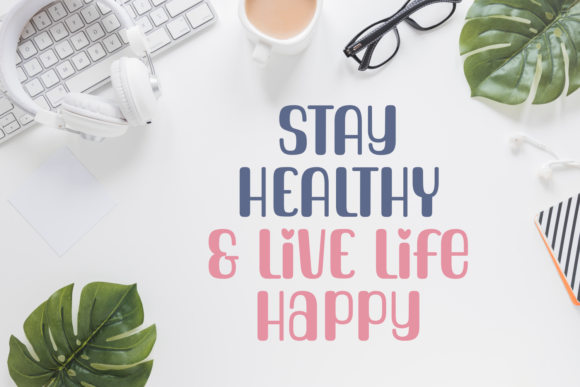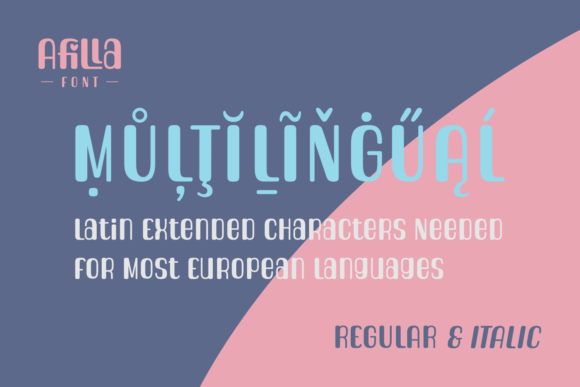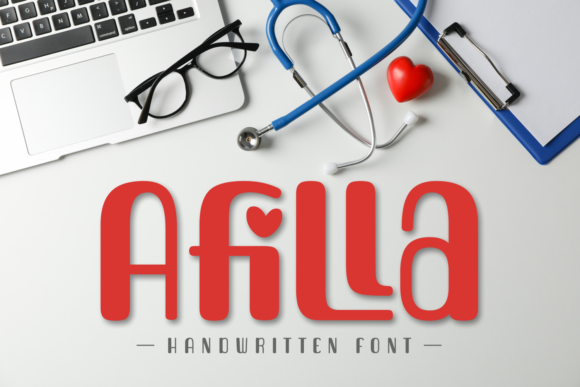
Introducing Afilla Font: The Cute and Casual Handwritten Font for Creative Projects
Are you a designer, crafter, or DIY enthusiast looking for a font that can add a personal touch to your creative projects? Look no further than Afilla Font, a cute and casual handwritten font that is sure to bring a friendly feel to any design. In this article, we’ll take a closer look at Afilla Font, its features, and how it can be used to elevate your creative projects.
What is Afilla Font?
Afilla Font is a beautifully designed handwritten font that is perfect for a wide range of creative projects. Whether you’re looking to create engaging Instagram posts, custom calligraphy scripts for DIY projects, or unique designs for personal or commercial use, Afilla Font is the perfect choice. Its incredibly friendly feel makes it ideal for designers and crafters who want to add a personal touch to their work.
Key Features of Afilla Font
So, what makes Afilla Font so special? Here are some of its key features:
- Cute and Casual Design: Afilla Font has a cute and casual design that is perfect for creative projects that require a friendly and approachable feel.
- Handwritten Style: The font has a beautiful handwritten style that gives it a personal and unique touch.
- Easy to Read: Afilla Font is easy to read, making it perfect for use in a wide range of creative projects, from social media posts to DIY projects.
- Versatile: The font is versatile and can be used for a wide range of creative projects, from Instagram posts to custom calligraphy scripts.
How to Use Afilla Font
Afilla Font is easy to use and can be incorporated into a wide range of creative projects. Here are some ideas to get you started:
- Instagram Posts: Use Afilla Font to create engaging and eye-catching Instagram posts that will help you stand out from the crowd.
- DIY Projects: Add a personal touch to your DIY projects with custom calligraphy scripts created using Afilla Font.
- Graphic Design: Use Afilla Font in your graphic design projects, such as brochures, flyers, and posters.
- Crafting: Use Afilla Font to create custom titles and headings for your crafting projects, such as scrapbooking and card making.
Why Choose Afilla Font?
So, why should you choose Afilla Font for your creative projects? Here are some reasons:
- Unique and Personal: Afilla Font has a unique and personal touch that will help your creative projects stand out from the crowd.
- Easy to Use: The font is easy to use and can be incorporated into a wide range of creative projects.
- Versatile: Afilla Font is versatile and can be used for a wide range of creative projects.
- High-Quality: The font is high-quality and will help you create professional-looking designs.
In conclusion, Afilla Font is a cute and casual handwritten font that is perfect for designers, crafters, and DIY enthusiasts who want to add a personal touch to their creative projects. With its incredibly friendly feel, versatile design, and ease of use, Afilla Font is the perfect choice for a wide range of creative projects. Whether you’re looking to create engaging Instagram posts, custom calligraphy scripts for DIY projects, or unique designs for personal or commercial use, Afilla Font is the perfect choice.